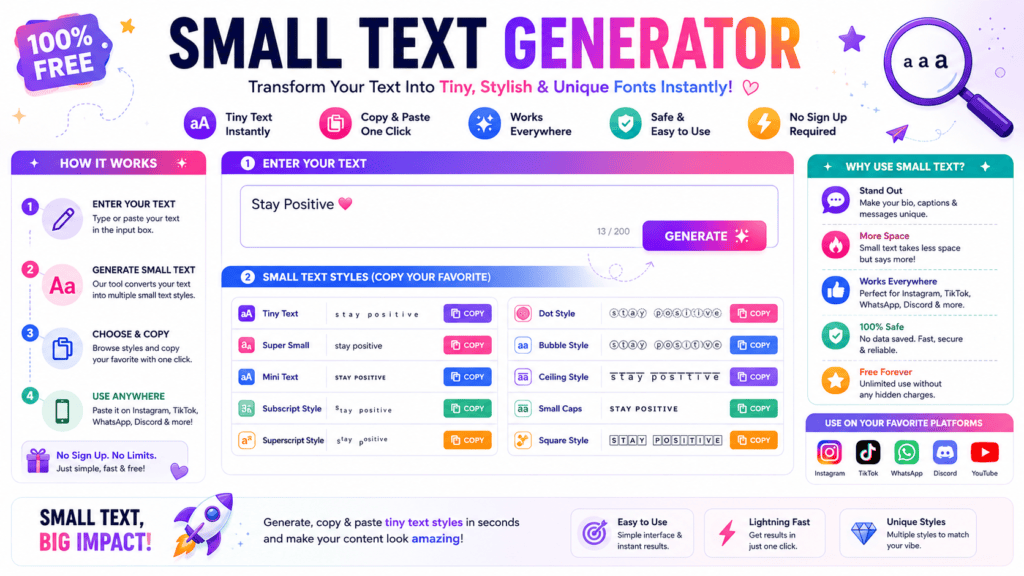
Small Text Generator
Transform standard copy into intricate small caps, superscript arrays, social media flairs, and advanced Unicode structural designs instantly.
Running fontgenerater.com taught me a small text generator isn’t just a novelty tool — it’s a standard way to convert ordinary writing into tiny, stylish fonts using Unicode, giving bios and captions attraction across social media.
A small text font also proves practical beyond looks: students format footnotes and references for MLA or APA academic requirements, while gamers choose Discord names and refine an Instagram Bio instantly, completely free and online.
What Is a Small Text Generator
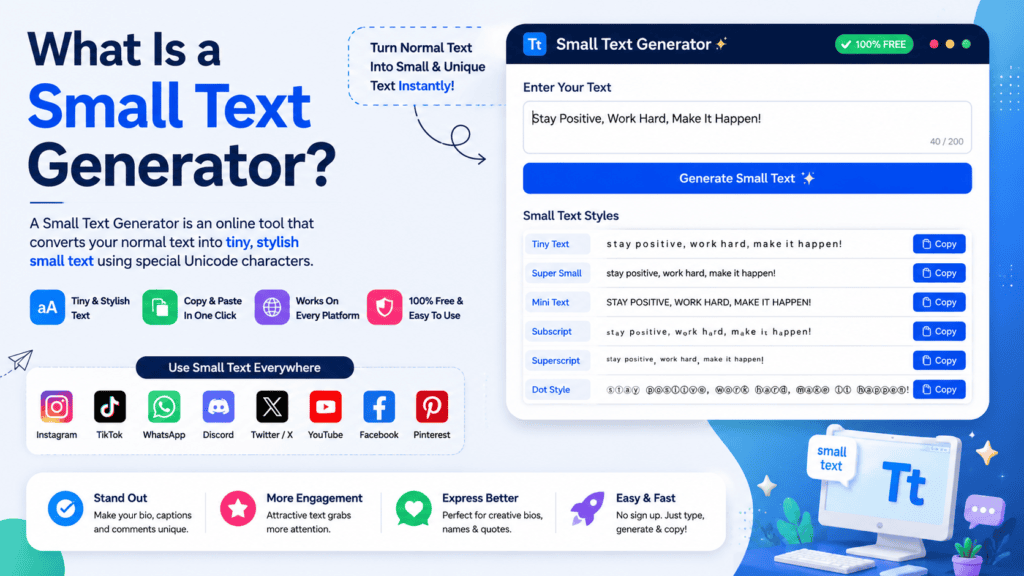
Operating this tool shatters the illusion of traditional font scaling. Instead of changing sizes, it forces a complex system to convert standard inputs. Your understanding of typography shifts once you realize it maps distinct Unicode.
Injecting these stylized outputs reveals how normal letters transform instantly into novel small letters. Practitioners exploit this architectural quirk to fashion smaller characters that remain fully legible across diverse current social media apps and venues.
How to Use the Small Text Generator
Achieving a distinctive identity across operating systems requires bypassing traditional font limits. This online tool manipulates the Unicode Standard, shifting character sets to yield instant results. Paste your text here for an immediate visual aesthetic.
Commanding audience attention on crowded platforms requires unexpected formatting. This ecosystem easily converts standard inputs into a small text font. It remains highly convenient to use when replacing normal text with unique, customized stylistic variations.
Why Use This Small Text Generator
Deploying a small font generator distorts traditional digital aesthetics deliberately. When screens overflow with loud announcements, going tiny forces users to focus deeply. I use these understated tactics so client bios instantly stand out quietly.
Crafting unique names requires subtle textual choices that subvert expectation. My experience shows that adjusting an Instagram Bio or embedding unexpected captions disrupts scrolling patterns, offering a highly stylish alternative to standard, boring online expressions.
Where to Use Small Text
Deploying micro-scripts across an Instagram bio or Twitter post bypasses standard layout constraints. As a practitioner, maximizing engagement within digital comments requires tactical typographic shifts, forcing digital content to truly stand out inside crowded feeds.
Optimizing Facebook comments or distinct Discord names establishes immediate visual authority. Utilizing these scaled characters for aesthetic purposes alters user perception, providing developers unique tactical design advantages across various modern social media digital interfaces globally.
Understanding Unicode (How Small Text Works)
In my design experience, real visual downsizing is a total illusion. Users do not shrink standard text fields; rather, they swap individual letters for a completely mismatched alphabet cataloged deep inside the global Unicode system.
Consequently, digital screens present these rogue unicode symbols from specialized unicode sets quite effortlessly. This phenomenon effectively encapsulates how standalone platforms render unexpected small text fonts, bypassing corporate restrictions through clever, decentralized character engineering choices.
Small Text Letters / Alphabets
Working with electronic frameworks taught me that selecting the right typography drastically alters project tone. Typical glyphs often crowd the screen, so substituting them with balanced small letters creates a clean, structured, contemporary visual hierarchy.
Integrating these minimized symbols across responsive devices completely redefines digital design. My personal testing confirms that scattering styled variations provides a unique look that subtly captures attention without sacrificing any inherent local viewport rendering readability.
Small Text on Social Media Platforms
Tweaking an Instagram BIO successfully bypasses rigid corporate restrictions. Industry expertise proves altered usernames immediately capture feeds. Developing a customized aesthetic assists creators to stand out during hyper-competitive social media posts inside popular digital apps.
Deploying miniature scripts inside WhatsApp or YouTube disrupts conventional typographic algorithms. Strategic network experiments reveal timelines on Facebook and Pinterest prioritize stylistic variance. Consequently, optimizing contemporary social media platforms including Reddit or Twitter triggers visibility.
How to Choose the Right Small Text Font
What Does Small Text Mean?
Experiencing digital meaning reveals that Unicode characters merely mimic tiny letters, entirely bypassing local fonts. This accurate term remains unfamiliar to developers seeking fancy text for online profiles, altering modern structural communication paradigms globally now.